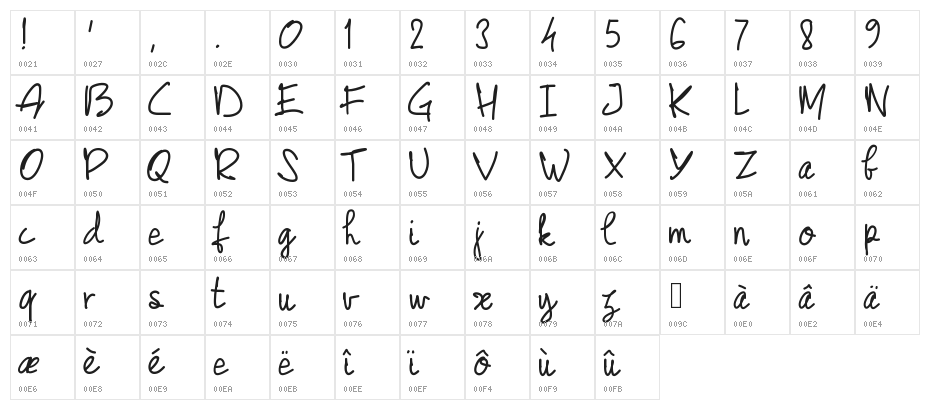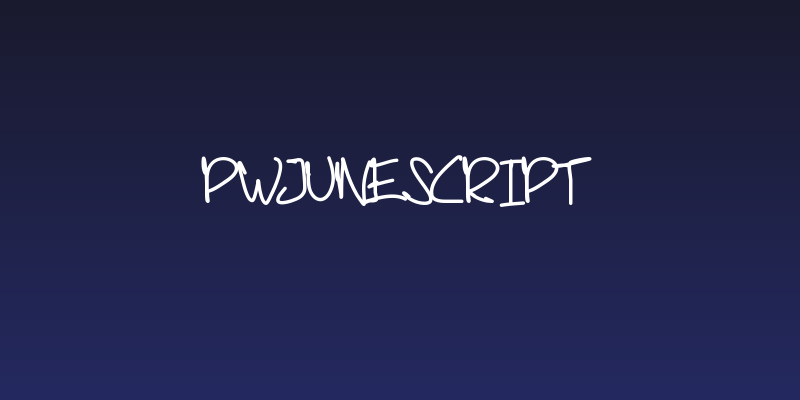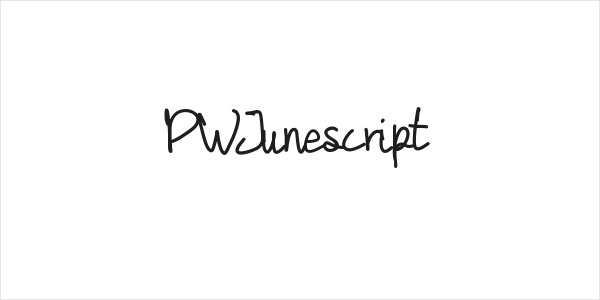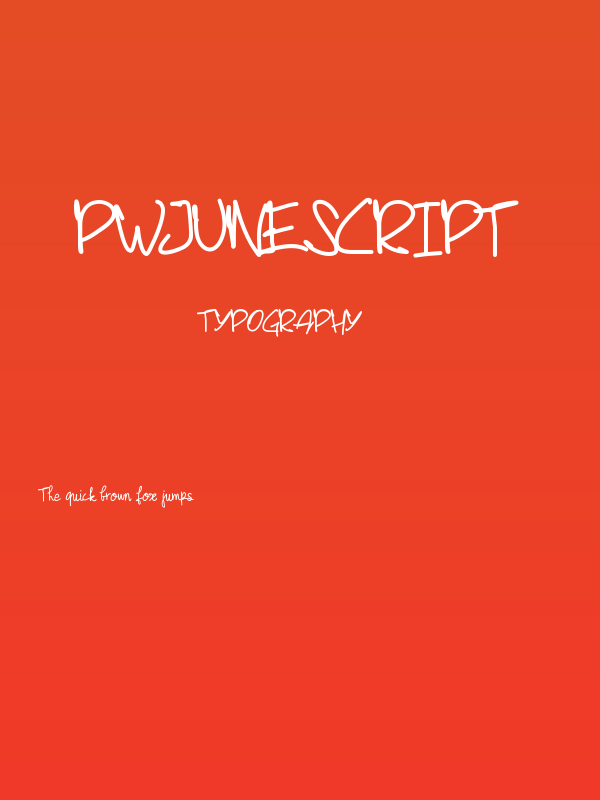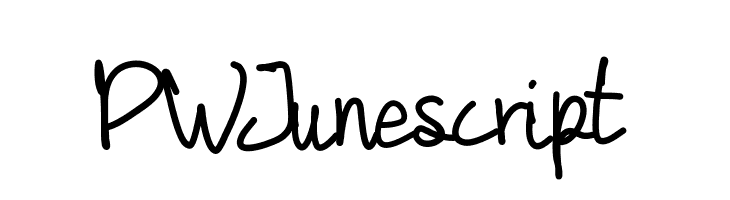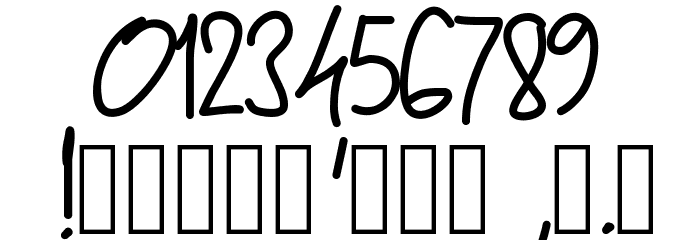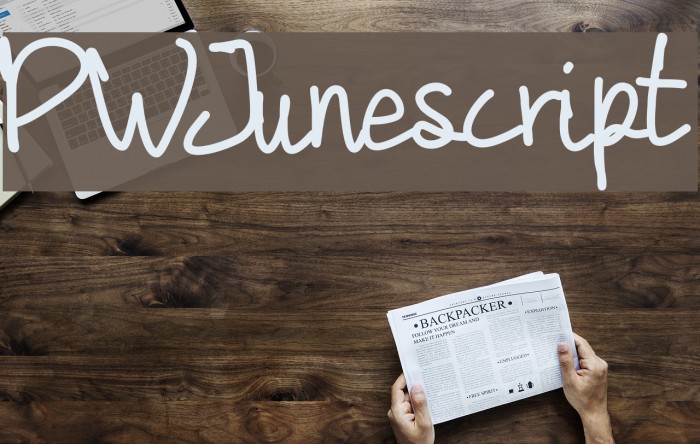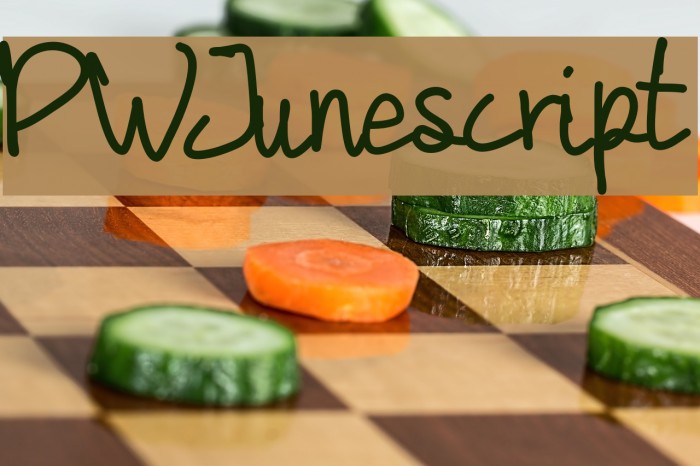
PWJunescript Font
PWJunescript Description
This font features a playful and casual handwritten style, characterized by its fluid and connected strokes. The uppercase letters are slightly slanted, giving a dynamic feel, while the lowercase letters maintain a consistent flow with rounded edges and smooth curves. The numerals are clear and legible, matching the overall informal aesthetic. Special characters are creatively integrated, maintaining the handwritten theme. This font exudes a friendly and approachable vibe, making it suitable for projects that require a personal touch.
| Proposed Projects | Ideal for greeting cards, personal invitations, casual branding, and social media graphics. |